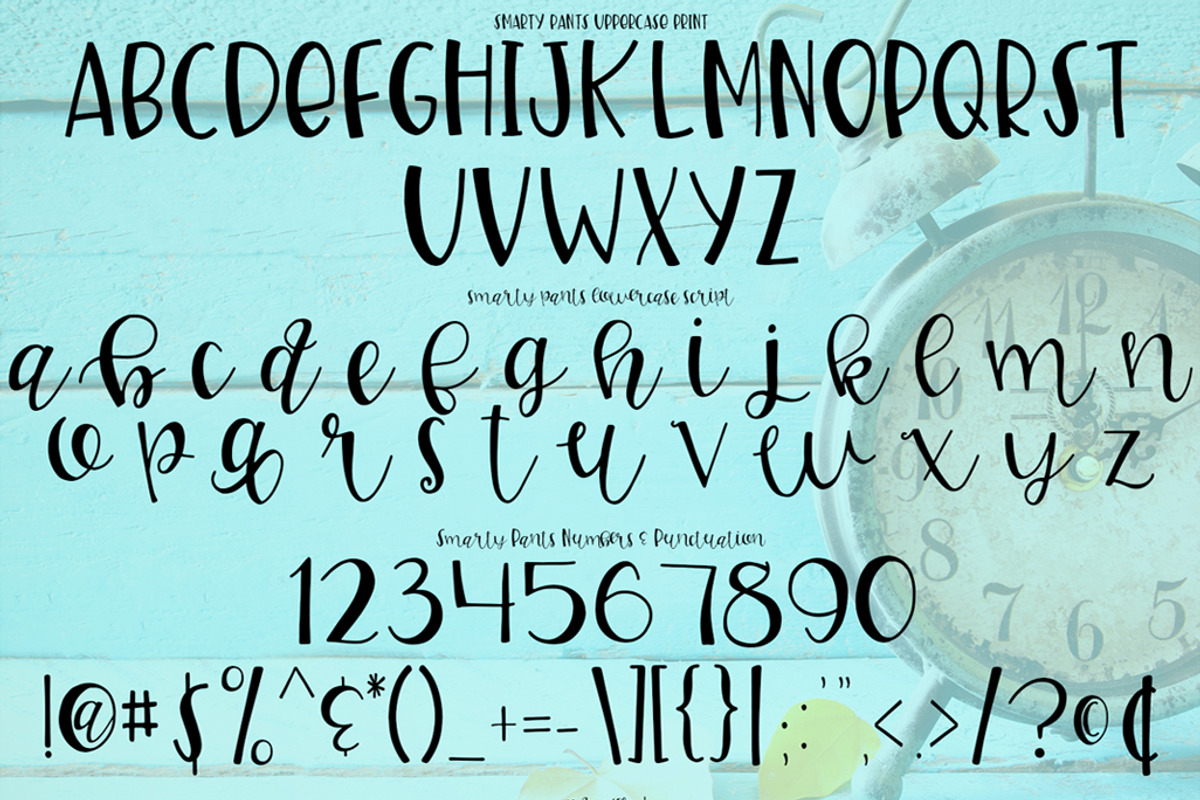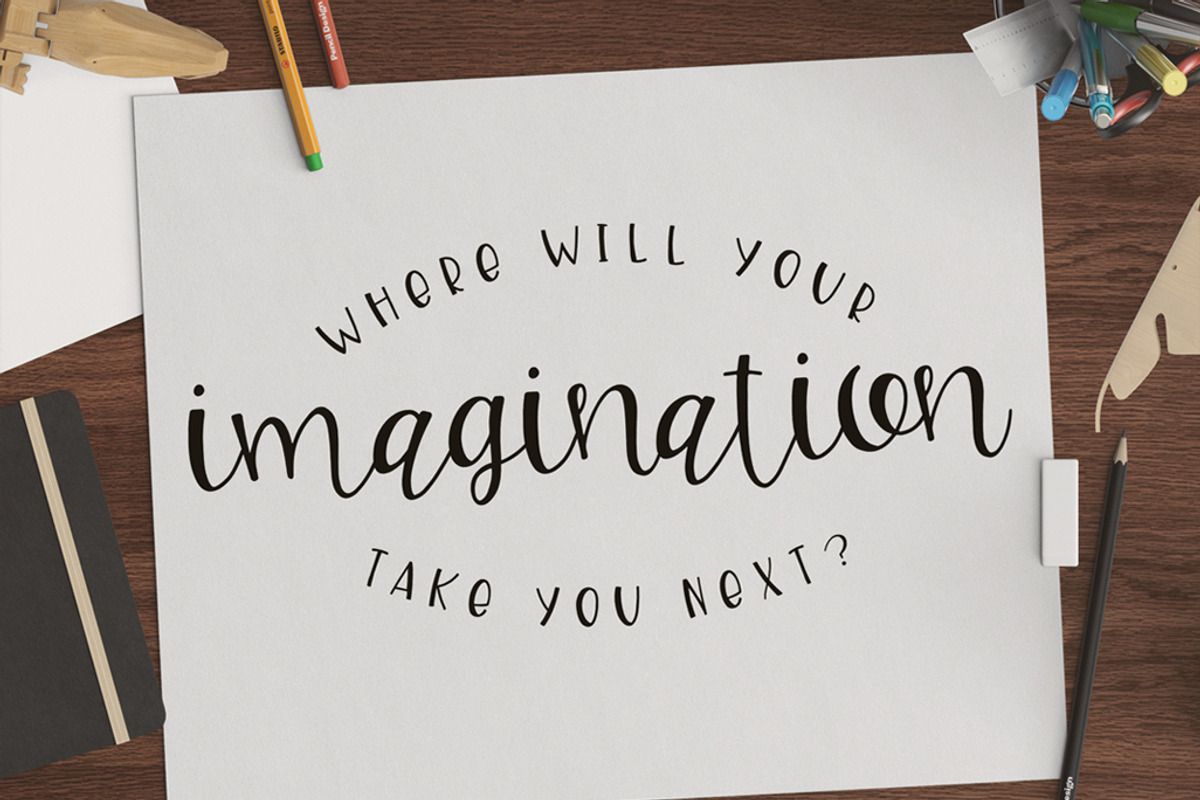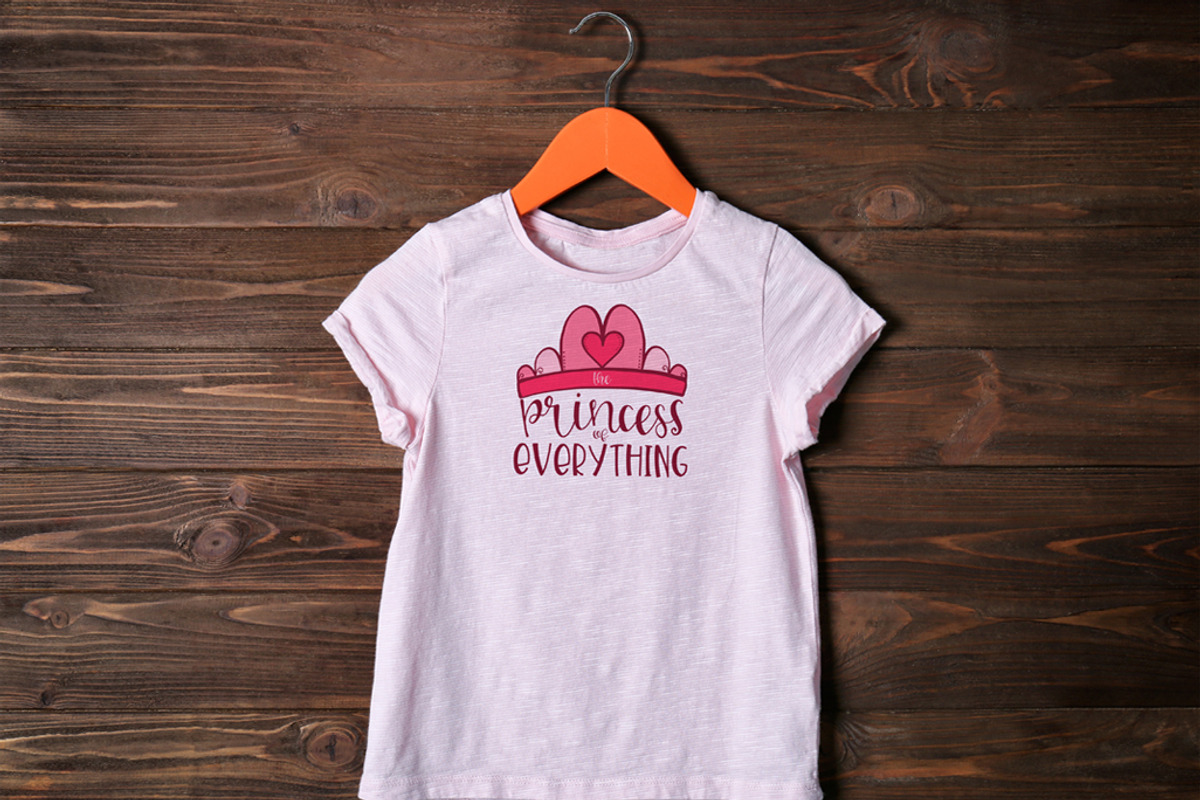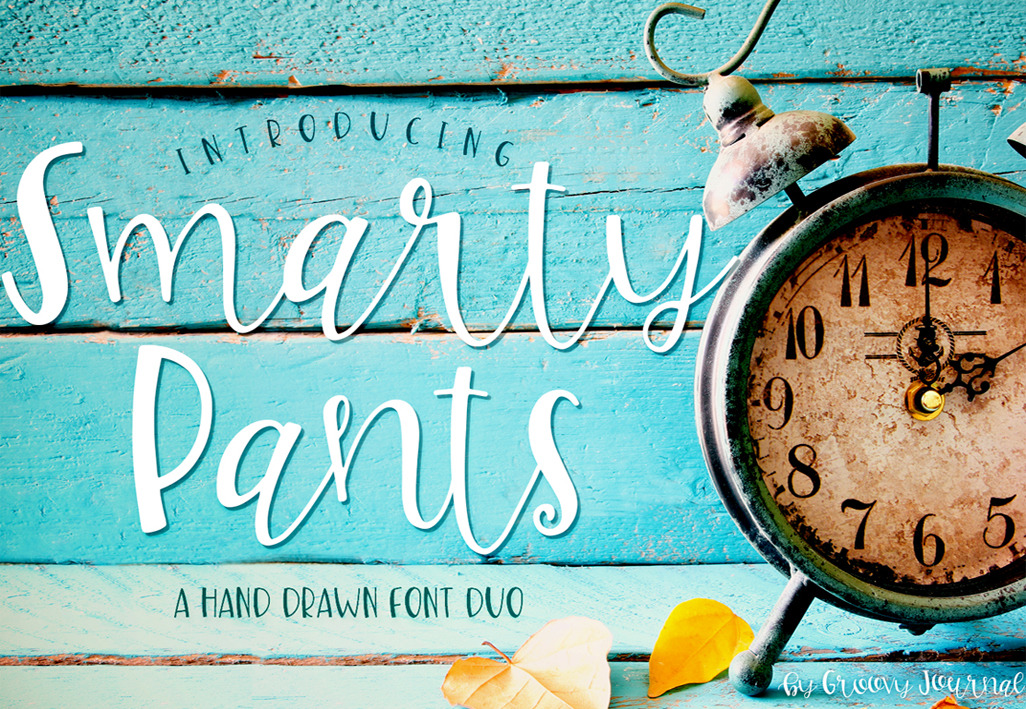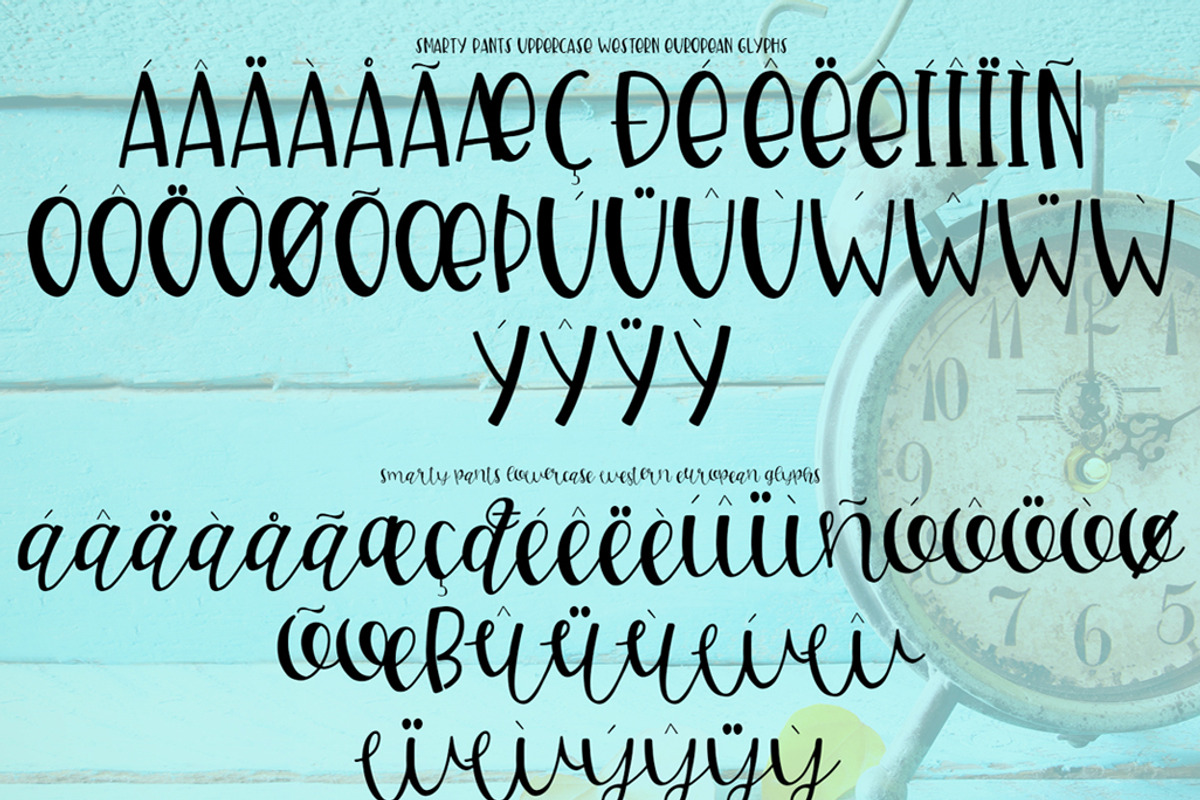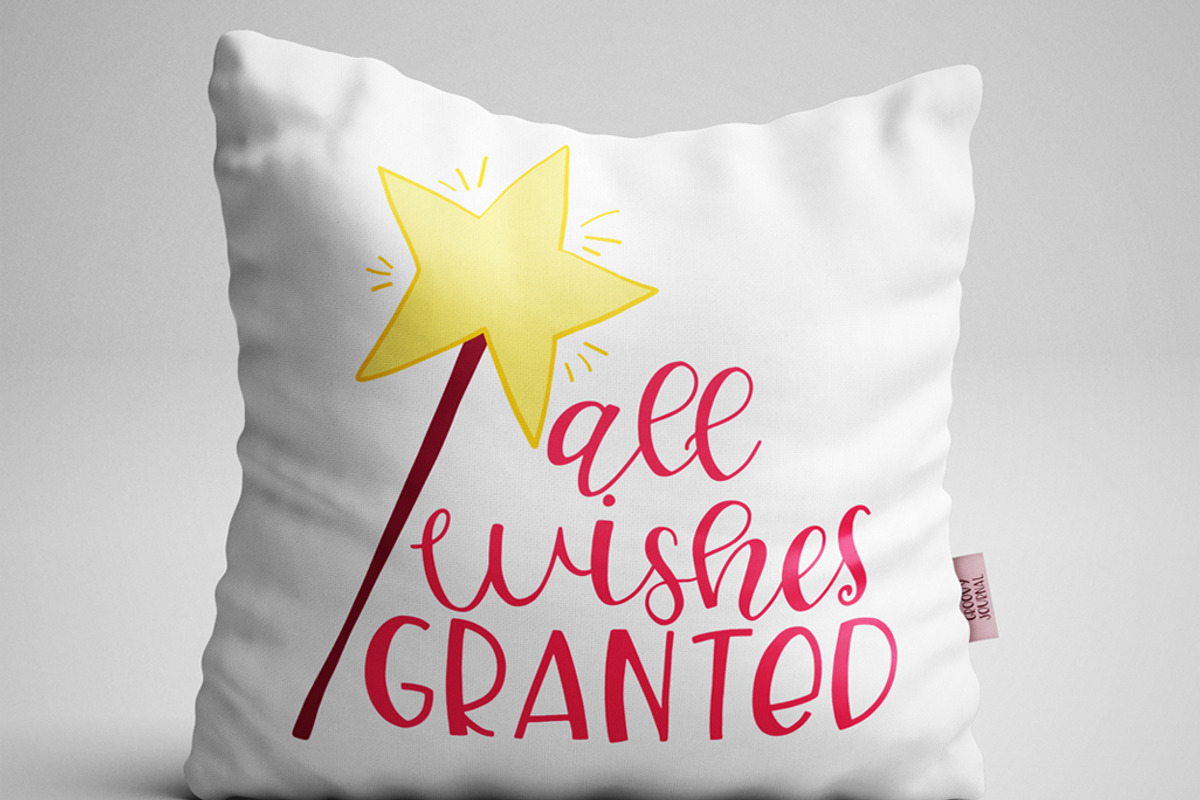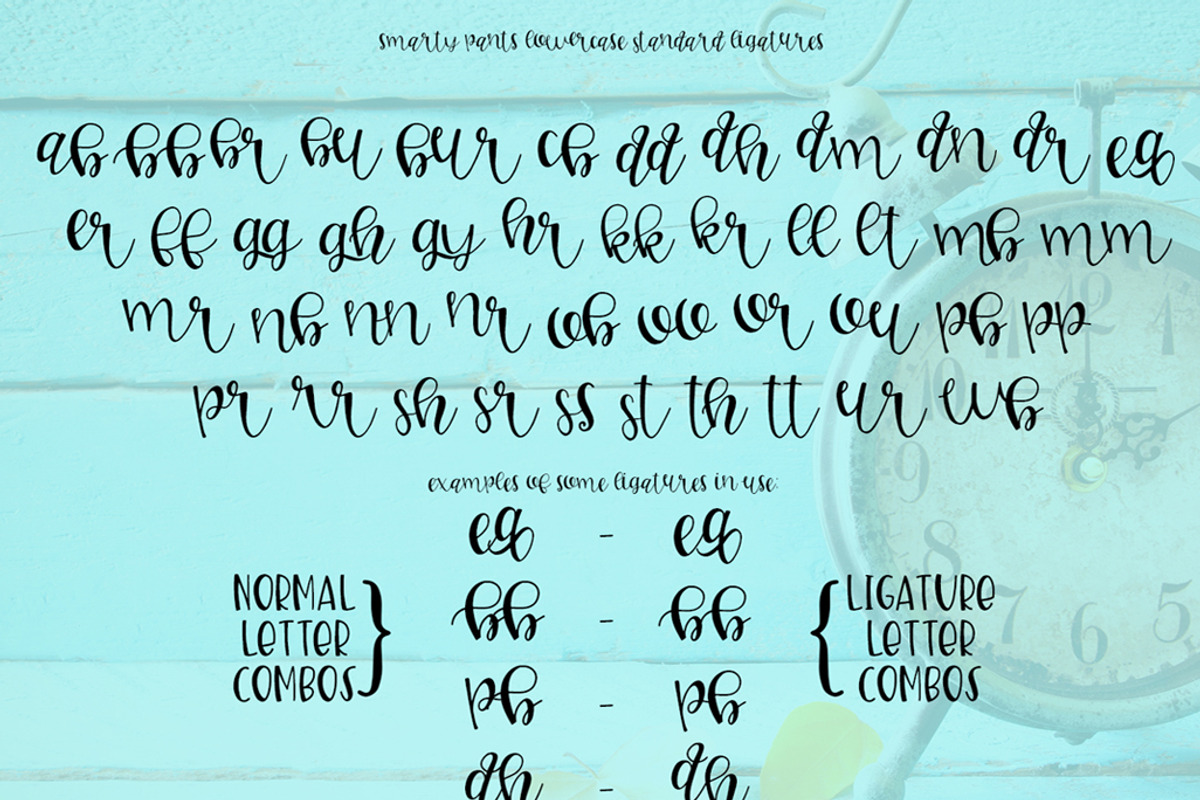
Smarty Pants Font Duo
Give your designs a hand-lettered dose of personality with Smarty Pants Handwritten Script Font Duo! Smarty Pants was designed to create a unique and genuine hand-lettered look and feel to all your projects.
Perfect for greeting cards, branding, social media, packaging, magazine layouts, prints and more!
An uppercase caps style
A lowercase script style
standard ligatures for the script style